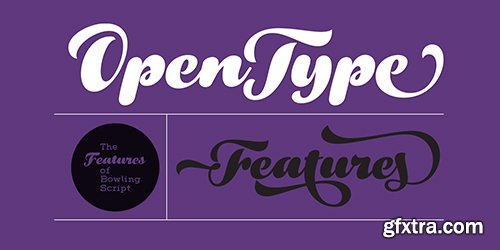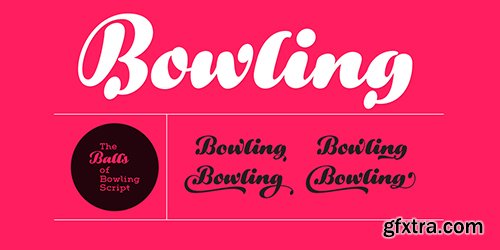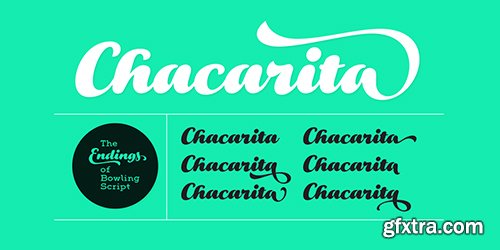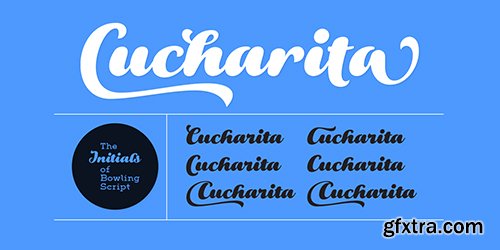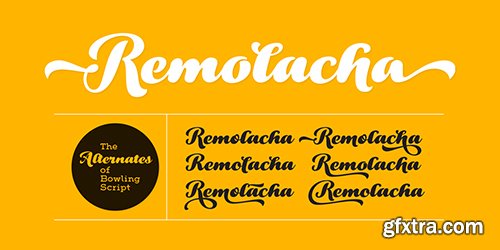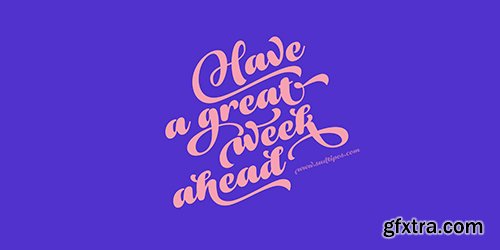
- There is plenty of lyric and literature about looking over one’s shoulder in contemplation. What would you have done differently if you knew then what you know now? This is the kind of question that comes out of nowhere. When it does and whether its context is personal or professional make very little difference. It’s a question that can cause emotions to rise and passions to run hot. It can trigger priority shifts and identity crises. It’s never easy to answer.Three years ago, I published a font called Semilla. My aim with that was to distill the work of Bentele, a lettering artist from early 1950s Germany. Picking such an obscure figure back then was my way of pondering the meaning and efficiency of objectivity in a world where real human events and existences are inevitably filtered through decades of unavoidably subjective written, printed and oral history.[/center]
And maybe to pat myself on the back for surviving surprises mild and pleasant.Having been fortunate enough to follow my professional whims for quite some time now, I took another, longer look at my idea of distilling Bentele’s work again. I suppose the concepts of established history and objectivity can become quite malleable when personal experience is added to the mix. I say that because there I was, three years later, second-guessing myself and opining that Bentele’s work can be distilled differently, in a manner more suited to current cultural angles. So I embarked on that mission, and Bowling Script is the result. I realize that it’s difficult to reconcile this soft and happy calligraphic outcome with the introspection I've blathered about so far, but it is what is. I guess even self-created first world problems need to be resolved somehow, and the resolution can happen in mysterious ways.Bowling Script is what people who like my work would expect from me. It’s yet another script loaded with all kinds of alternation, swashing and over-the-top stuff. All of that is in here. These days I think I just do all that stuff without even blinking. But there are two additional twists.The more noticeable one is ornamental: The stroke endings in the main font are of the typical sharp and curly variety found in sign painting, while the other font complements that with ball endings, sometimes with an added-on-afterwards impression rather than an extension of the actual stroke. In the philosophical terms I was mumbling earlier, this is the equivalent of alternate realities in a world of historical reduxes that by their very nature can never properly translate original fact.The second twist has to do with the disruption of angular rhythm in calligraphic alphabets. Of course, this is the kind of lettering where the very concept of rhythm can be quite flexible, but it still counts for something, and experimenting with angular white space in a project of a very dense footprint was irresistible. After playing for a bit, I decided that it would interesting to include the option of using optically back-slanted forms in the fonts. Most scripts out there, including mine, have a rhythm sonically comparable to four-to-the-floor club beats. So the weirdly angled stuff here is your chance to do the occasional drumroll. Everyone knows we need one of those sometimes.Bowling Script and Bowling Script Balls fonts comes with 1600 characters and features extended Latin-based language support. There are also a basic version of both fonts without all the alternates and extra OpenType features. Bowling family ships in cross-platform OpenType format.We also want to present “Mute”, a visual essay narated by Tomás García and Valentín Muro, about digital life created specially to introduce Bowling Script.